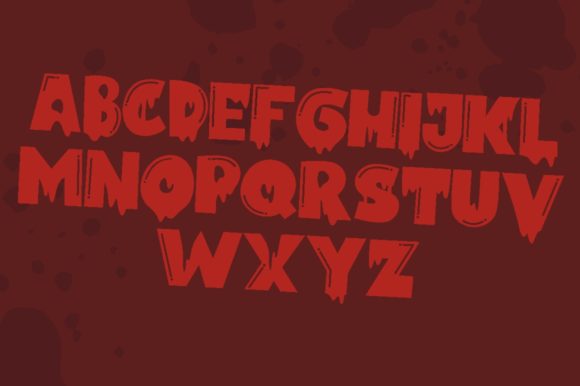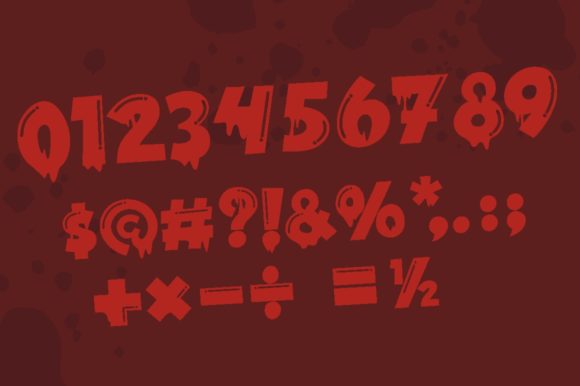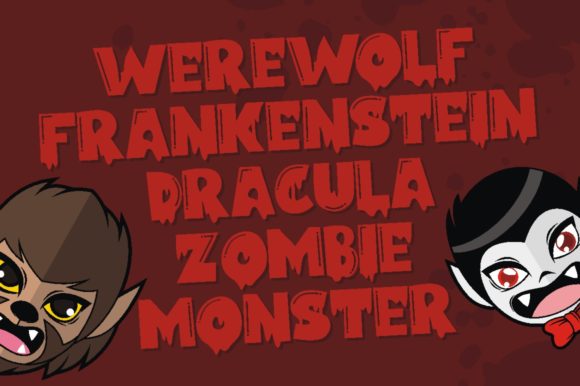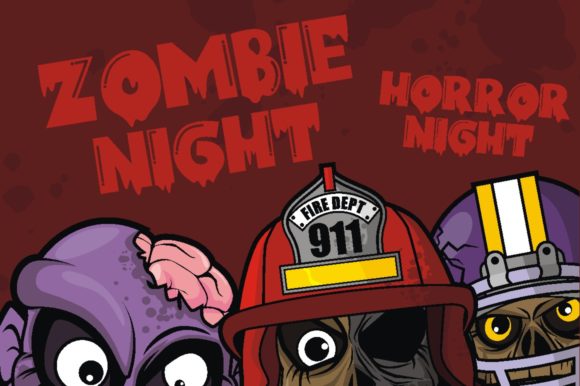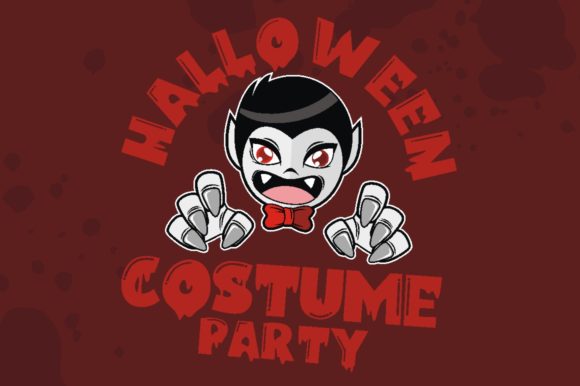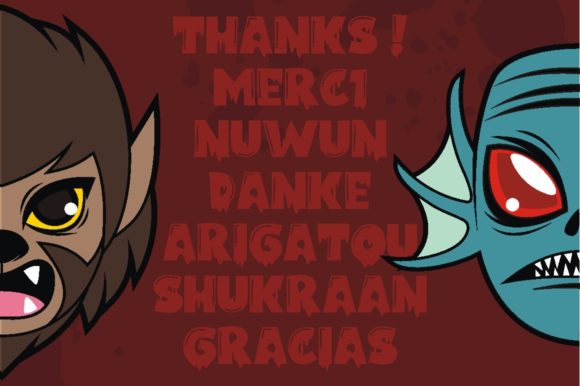
Introduction to Luka Lama Font
Luka Lama is a horror-themed display font.
It is very suitable for Halloween parties, horror movies and games, and much more .